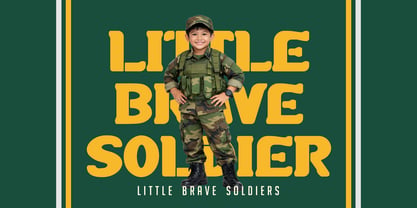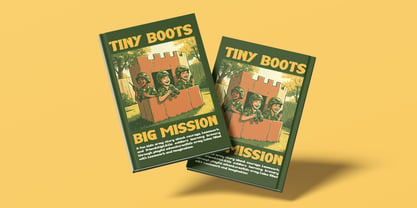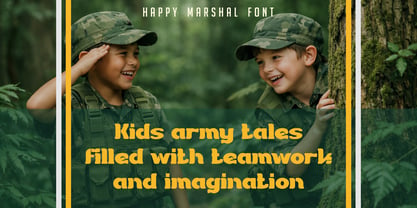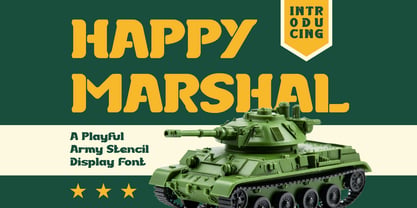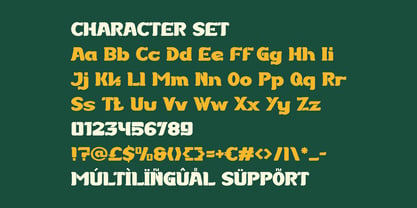
Happy Marshal
by Shanaf
The Happy Marshal Font Family was designed by Yesie Erma Yunita and published by Shanaf. Happy Marshal contains 1 styles. More about this family
Happy Marshal Playful Army Stencil Font features bold, rounded letterforms with a solid and friendly structure. The characters feel wide and stable, with thick strokes that create strong visual impact. Soft corners reduce rigidity, making the font approachable and fun. Stencil cuts appear clean and consistent, helping each letter remain readable at display sizes. The proportions lean slightly chunky, which adds charm and confidence to short texts. Spacing is generous, allowing letters to stand clearly in logos and headlines. The overall form balances strength and playfulness without feeling aggressive. Happy Marshal Playful Army Stencil Font delivers a clear display character that supports energetic and imaginative branding. It performs best when used for short phrases that need attention and personality. The style fits playful, fun, and themed display typography with a clear kids and toy focus. This font works well for toy brands, children activity products, educational games, kids books, playsets, and themed entertainment businesses. It suits usage for logos, branding systems, packaging, posters, advertisements, headlines, book covers, movie titles, stickers, greeting cards, invitations, crafting projects, and magazines. The army inspired stencil feel adds adventure while keeping a friendly tone for young audiences. It helps brands communicate imagination, teamwork, and playful storytelling. The font supports multilingual characters, making it useful for global kids branding. Its strong shapes ensure clarity across print and digital media. This makes it suitable for bold brand identities that target children and families.